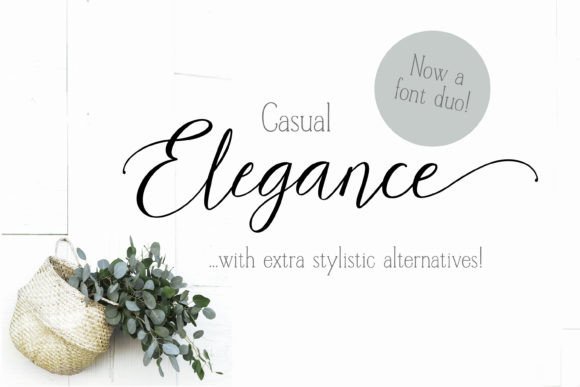
Casual Elegance: The Script Font for Modern Brands
Casual Elegance is a stylish display script font that bridges the gap between approachable warmth and high-end sophistication, making it an essential tool for marketers who need to capture attention instantly. In the crowded digital landscape, where users scroll through hundreds of posts per minute, your typography must do more than just convey information; it must evoke emotion and establish immediate brand recognition. This Script Handwritten typeface offers a unique visual voice that stands out among generic sans serifs, providing the personality needed for scroll-stopping visuals on social media, email headers, and digital advertisements.
Elevating Social Media Graphics with Casual Elegance Typography
When designing for platforms like Instagram, Pinterest, and TikTok, the visual hook is everything. Casual Elegance excels in this environment because its thicker strokes ensure readability even on small mobile screens, a common pitfall for many delicate script Fonts. As a content creator, you can leverage this font to create Reels covers that maintain aesthetic consistency while clearly communicating the video’s topic. The special alternative characters allow you to vary the look of repeated words, preventing visual fatigue in carousel posts or story sequences. For instance, when promoting a seasonal sale, using Casual Elegance for the headline "Summer Sale" adds a touch of exclusivity that standard bold fonts lack, encouraging higher click-through rates by suggesting a curated, premium experience rather than a desperate clearance event.
Creating Scroll-Stopping Thumbnails and Video Covers
YouTube thumbnails and video covers require text that is legible at a glance yet stylish enough to reflect the channel’s brand identity. Casual Elegance, with its robust structure, performs exceptionally well here. Unlike thinner scripts that disappear against busy backgrounds, this font holds its ground. Marketing specialists can use it to highlight key emotional triggers in titles, such as "Exclusive Access" or "Behind the Scenes." The extra ligatures provide a seamless flow between letters, which reduces visual clutter and helps the viewer process the message faster. This speed of comprehension is critical for retaining audience attention in fast-paced feeds. By integrating this Script Handwritten style into your video branding, you create a cohesive visual language that subscribers instantly recognize, fostering loyalty and trust.
Strengthening Brand Identity Through Logo and Signage Design
A logo is the cornerstone of brand recognition, and Casual Elegance offers the versatility needed for modern logo design. Its design as a thicker yet elegant script makes it suitable for businesses that want to appear friendly yet professional, such as boutique cafes, beauty salons, or creative agencies. When used in logos, the font’s natural rhythm and connected letters suggest continuity and care, qualities that resonate with consumers looking for personalized services. Furthermore, its application extends to physical and digital signs. Whether it’s a storefront window decal or a digital banner on a website homepage, Casual Elegance ensures that your brand name is not just read but felt. The inclusion of special alternative characters means you can customize the logo to avoid awkward letter combinations, ensuring a polished and bespoke look that sets your brand apart from competitors using stock templates.
Enhancing Readability and Visual Hierarchy in Campaigns
Effective marketing communication relies on clear visual hierarchy, guiding the viewer’s eye from the most important information to the supporting details. Casual Elegance serves as an excellent primary display font for headlines and callouts, while pairing beautifully with clean sans serif fonts for body text. This contrast creates a balanced composition that is easy to digest. For example, in a digital ad for a new product launch, use Casual Elegance for the product name or the main benefit statement, and a simple geometric sans serif for the technical specifications or call-to-action button. This combination leverages the emotional appeal of the Script Handwritten style while maintaining the clarity needed for conversion. The thickness of the font ensures that the headline remains the focal point, even when viewed on smaller devices or in quick-glance scenarios like sidebar ads.
Perfecting Wedding Invitations and Event Marketing Materials
The event industry thrives on aesthetics, and Casual Elegance is perfectly suited for invitations, save-the-dates, and event signage. Its stylish display nature captures the celebratory and intimate mood of weddings, galas, and corporate retreats. For wedding planners and stationery designers, this font offers a modern alternative to traditional, overly ornate scripts. It feels contemporary and fresh, appealing to couples and brands looking for a chic, understated elegance. The extra ligatures add a custom, hand-lettered feel that enhances the perceived value of the invitation suite. When used in digital event promotions, such as email headers or landing page banners, Casual Elegance creates an inviting atmosphere that encourages registrations. It signals to the audience that the event will be thoughtful and well-curated, increasing the likelihood of engagement and attendance.
Optimizing Digital Banners and Email Headers for Engagement
Email marketing and web banners require typography that communicates tone instantly. Casual Elegance brings a human touch to digital communications, making automated emails feel more personal and less transactional. Use it in email headers to greet subscribers or to announce special offers, creating a sense of warmth and connection. In web design, this font works well for hero sections on landing pages, particularly for lifestyle brands, coaches, and consultants who rely on personal branding. The key to success here is restraint; use Casual Elegance for short, impactful phrases rather than long paragraphs. This ensures that the message remains clear and the design remains uncluttered. By consistently using this Script Handwritten font across your digital touchpoints, you reinforce your brand’s personality, making your marketing materials more memorable and effective.
Strategic Font Pairing for Professional Design Assets
To maximize the impact of Casual Elegance, understanding font pairing is crucial. This display script pairs exceptionally well with neutral, modern sans serifs like Montserrat or Lato, which provide a stable foundation for the more expressive script. For a more editorial or luxury look, consider pairing it with a high-contrast serif font. This combination evokes a sense of tradition and quality, ideal for high-end product packaging or magazine-style layouts. When creating templates for clients or internal use, establish clear guidelines on how to use Casual Elegance alongside other Fonts to maintain visual consistency. Remember that this font is designed for display purposes, so it should primarily be used for titles, logos, and short accents. By respecting its intended use case, you ensure that your designs remain professional, readable, and visually harmonious across all platforms.